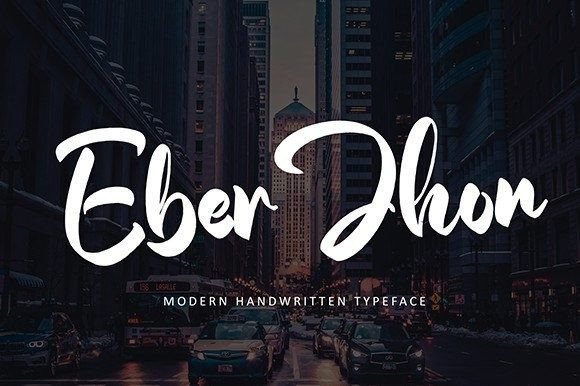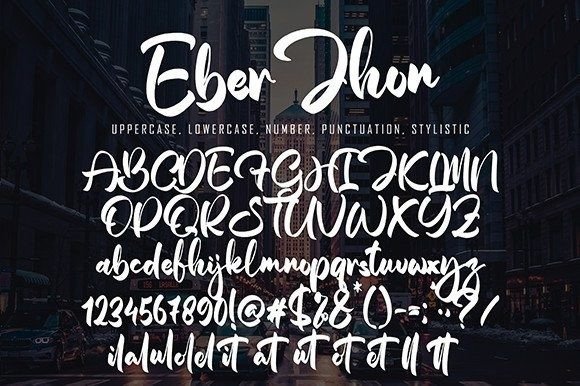
Eber Jhon Font
About Eber Jhon Font
“Eber Jhon” is not just a font; it’s a handwritten typeface with a new and distinctive style that’s ideal for a wide range of projects. Whether you’re working on quotes, logos, blog headers, posters, branding, letters, invitations, stationery, and more, this font is crafted to bring a fresh and unique touch to your creative endeavors.
The new style of “Eber Jhon” sets it apart, making it suitable for various design applications. Its versatility allows it to seamlessly integrate into different projects, adding a contemporary and modern aesthetic to your typography.
This font’s adaptability to quotes and logos suggests its ability to convey both expressive and impactful messages. Whether you’re aiming for a playful and casual vibe or a more stylish and sophisticated look, “Eber Jhon” provides the flexibility to meet diverse design requirements.
Incorporating “Eber Jhon” into your font collection opens up opportunities for creative expression. Its application in blog headers, posters, and stationery showcases its ability to maintain a consistent and visually appealing look across various media.
In summary, “Eber Jhon” is more than just a handwritten font; it’s a typeface with a new and versatile style. Whether used for quotes, logos, or stationery, this font is designed to bring a contemporary and unique aesthetic to your creative work, making it a valuable asset for designers seeking a font that can effortlessly elevate the visual impact of their projects.